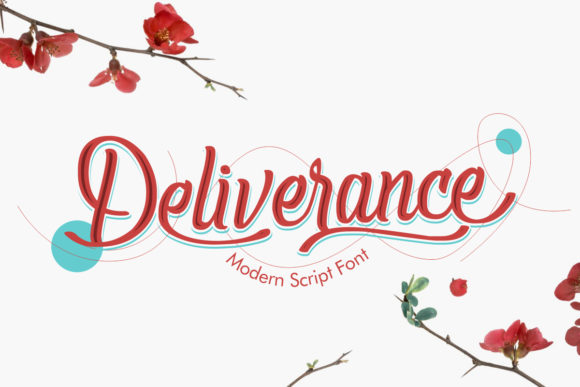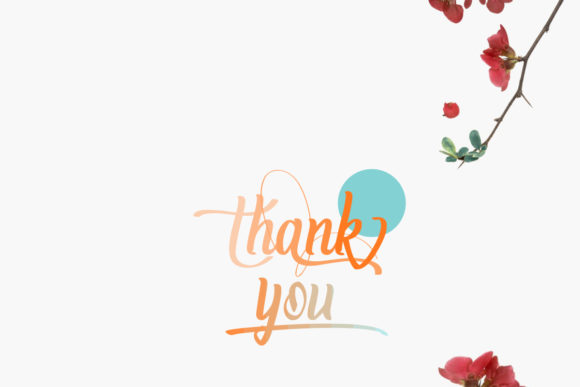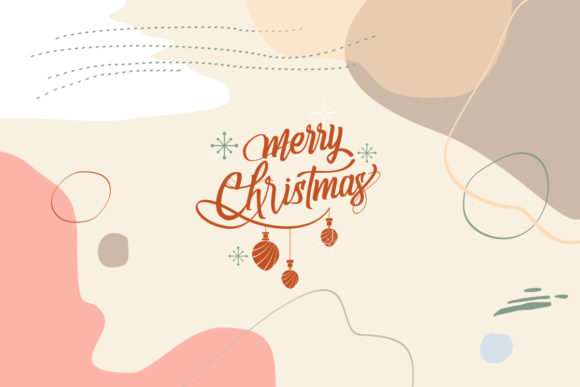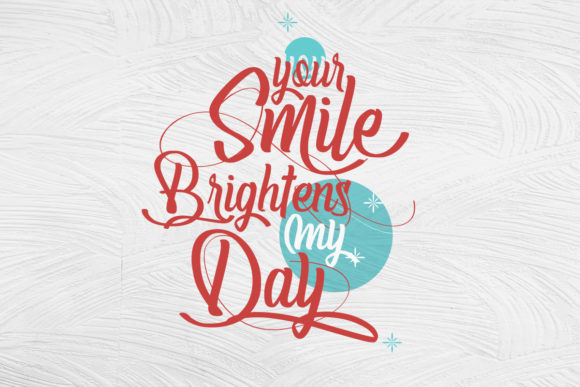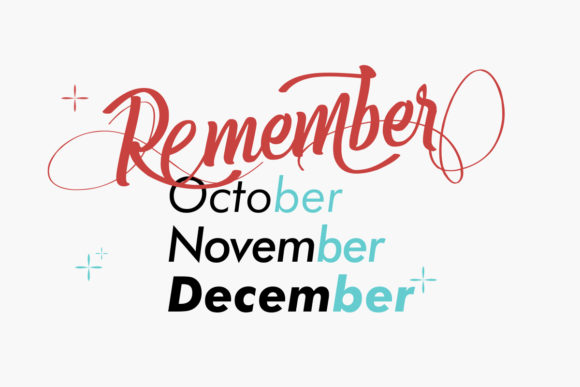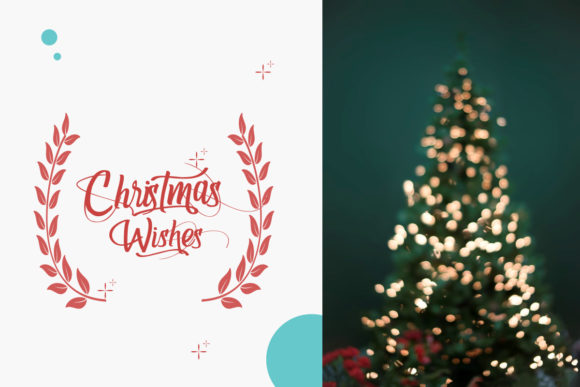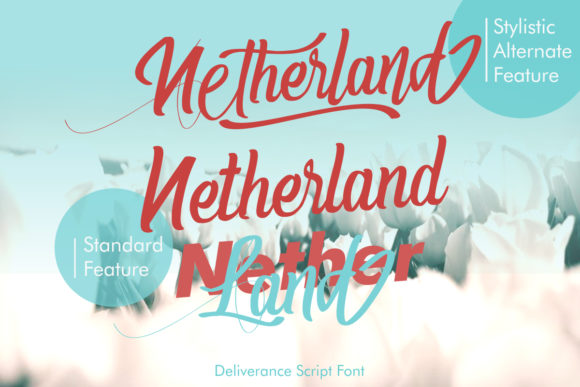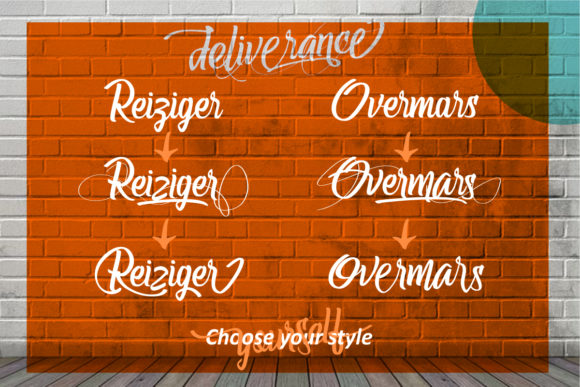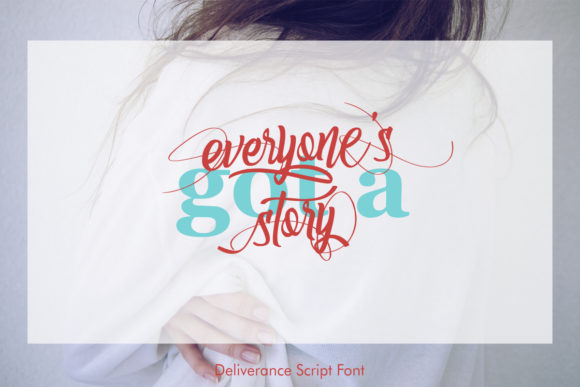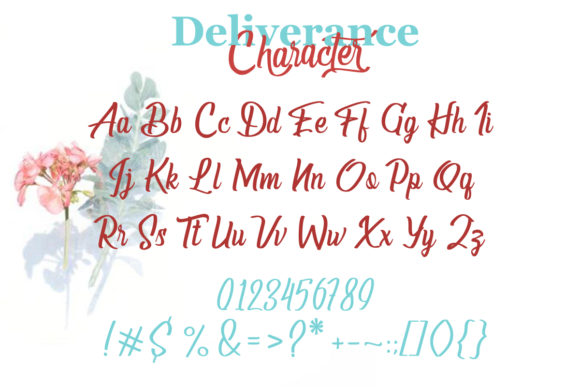
Deliverance Font
About Deliverance Font
Deliverance is a sweet and charming handwritten font that will add a bold feel to any design idea. Get inspired by its unique charm!